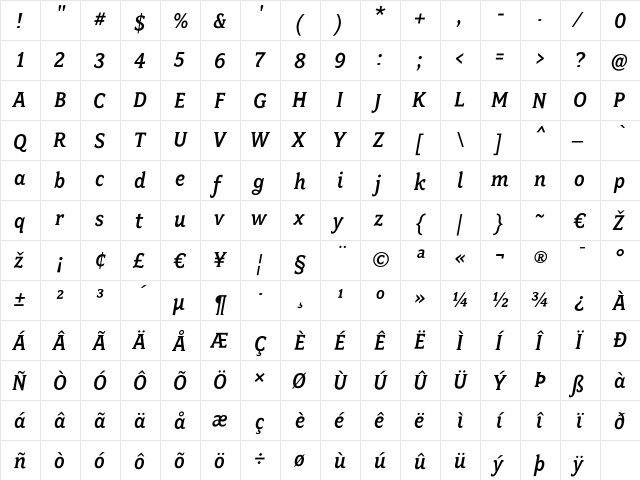
FairplexNarrow Regular
Design Context for FairplexNarrow Typeface
FairplexNarrow offers clean, dependable letterforms without strong stylistic allegiance, making it a practical choice for designers who need flexibility. Its narrow stance lets it pack a punch even in space-constrained designs.